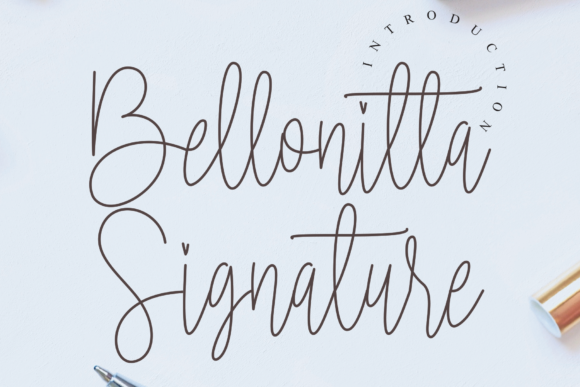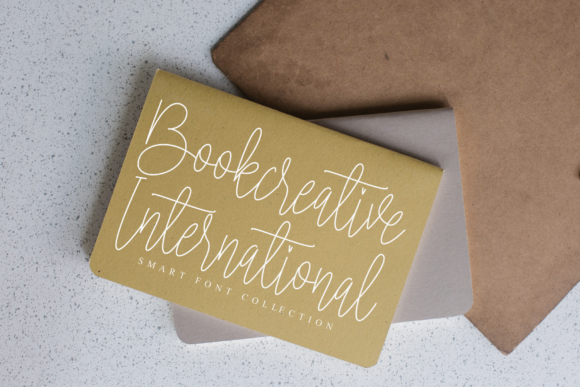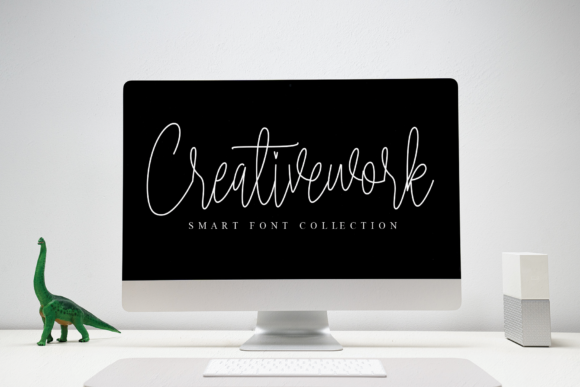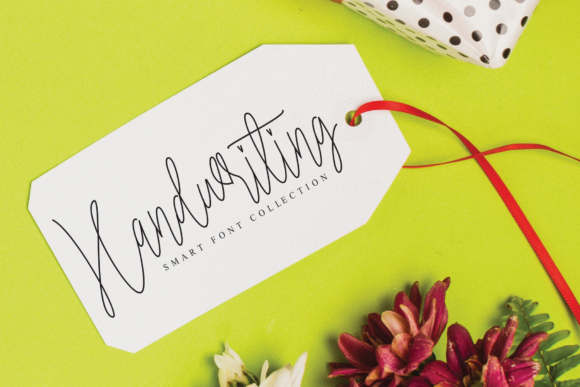
About Bellonitta Signature Font
Bellonitta Signature is a delicate and elegant handwritten font. Its distinct and well balanced letters make this font a masterpiece. Fall in love with its incredibly versatile style and use it to create spectacular designs!